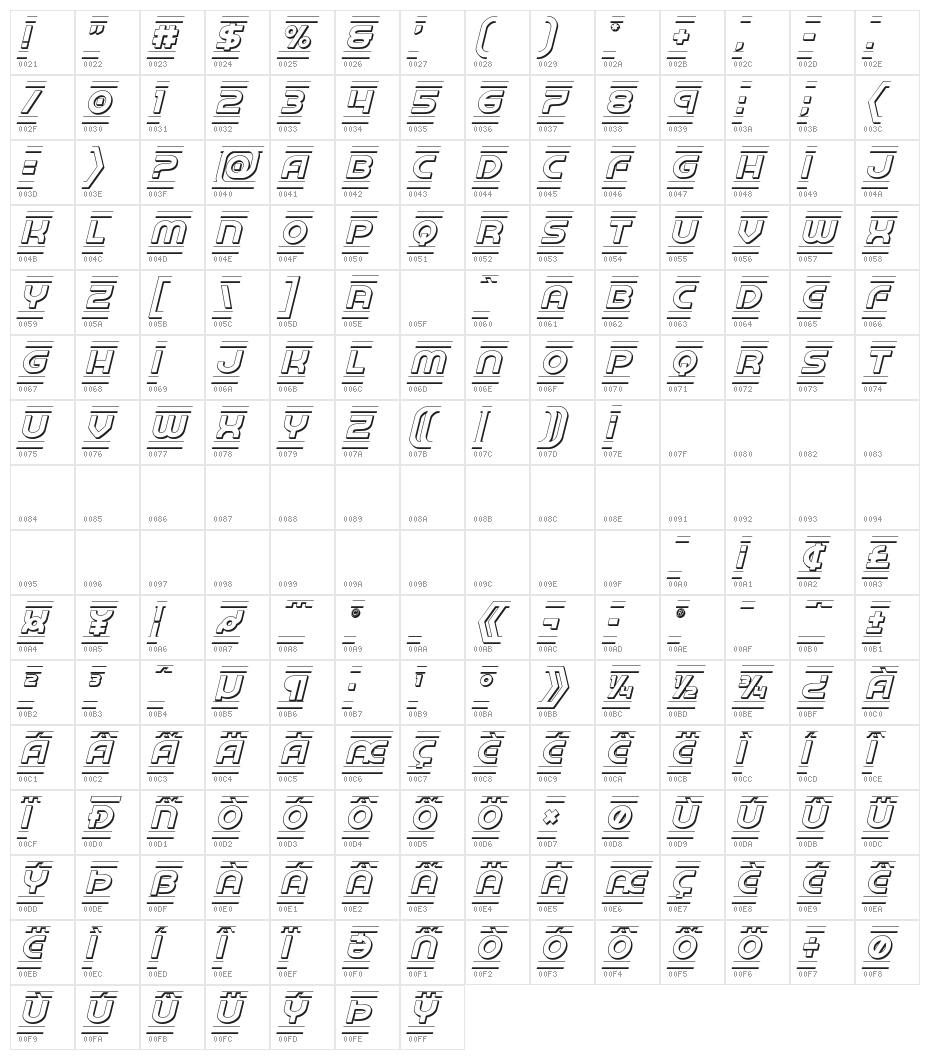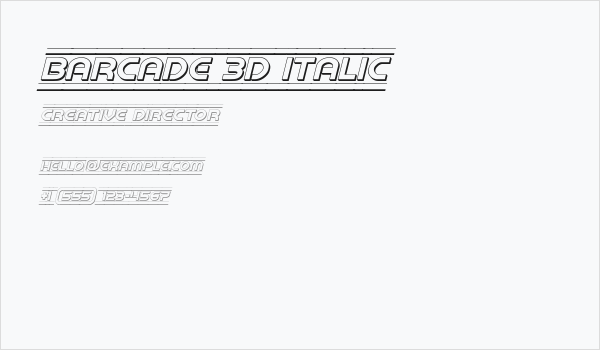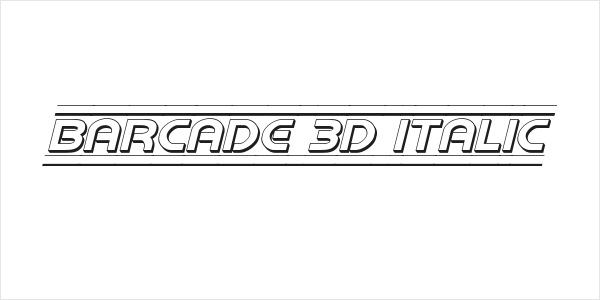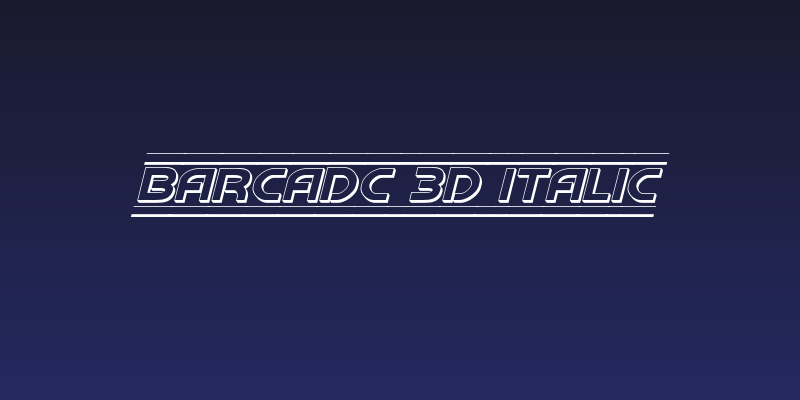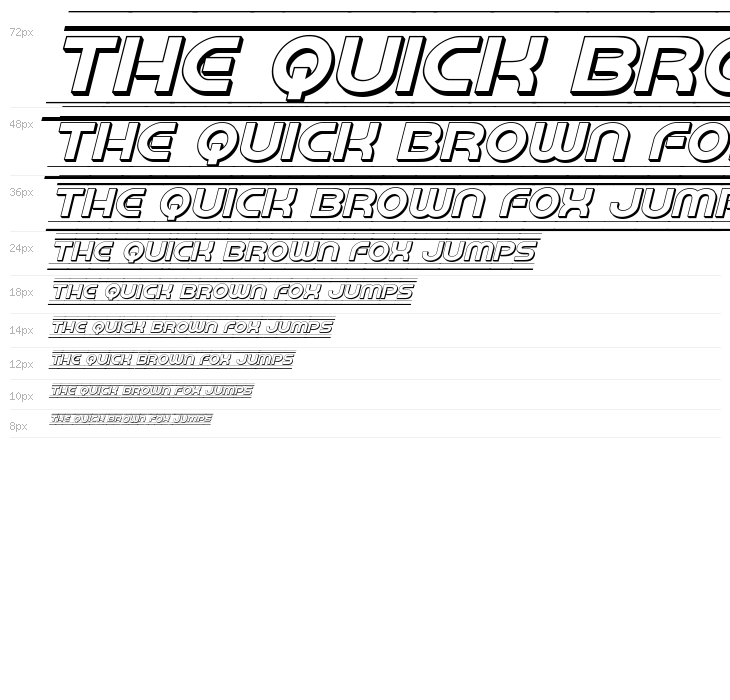
Barcade 3D Italic Font
Barcade 3D Italic Description
This font features a bold, three-dimensional design with an italicized slant, giving it a dynamic and futuristic appearance. The letters are outlined with a shadow effect, enhancing the 3D illusion. The geometric shapes and clean lines contribute to a modern and tech-inspired aesthetic. Each character is distinct, with consistent spacing and a uniform stroke width that maintains readability. The numbers and special characters follow the same stylistic approach, ensuring a cohesive look across all elements.
| Proposed Projects | Ideal for video game titles, tech branding, futuristic posters, and digital media projects. |